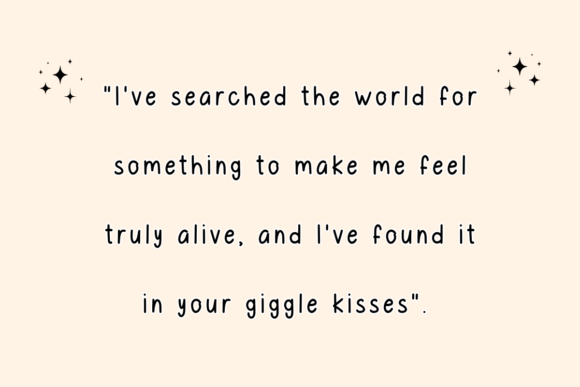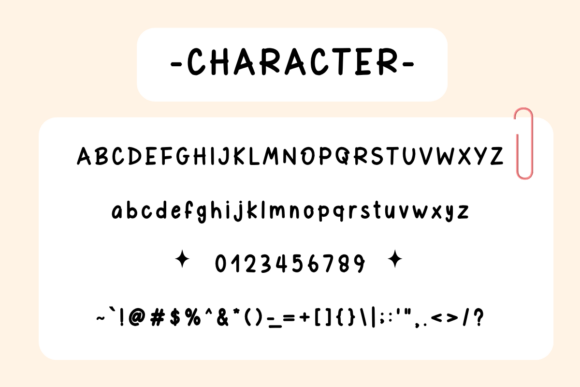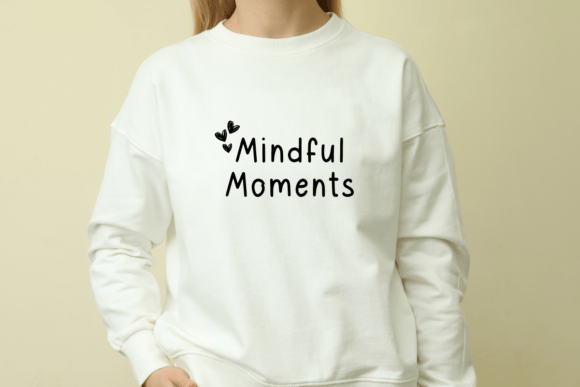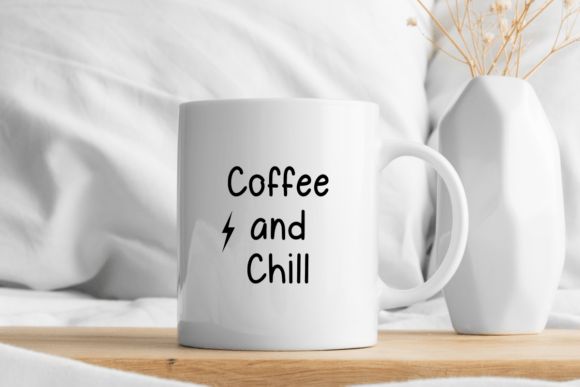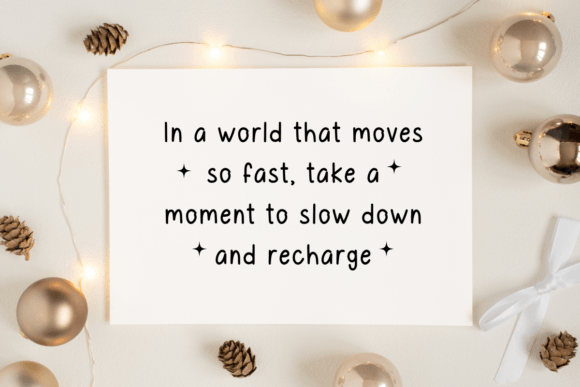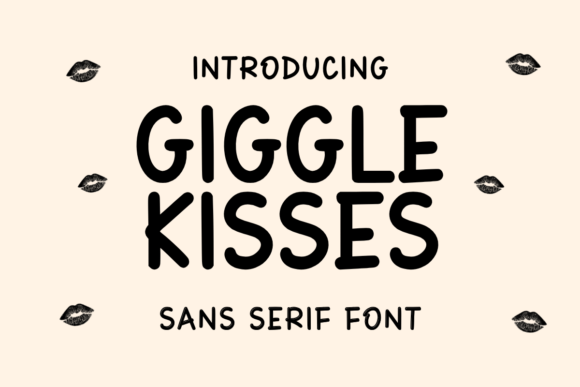
Introducing Giggle Kisses Font: The Perfect Blend of Clean, Modern, and Friendly
In the world of typography, fonts play a crucial role in conveying the tone and personality of a brand or design. For designers and crafters, finding the right font can be a daunting task, especially when it comes to creating visually appealing and engaging content. This is where Giggle Kisses Font comes in – a clean and modern sans serif font that adds a stylish and welcoming touch to any project.
What Makes Giggle Kisses Font Stand Out?
Giggle Kisses Font is a unique and refreshing addition to the world of typography. Its smooth, simple letters make it easy to read, perfect for a variety of design applications, including logos, posters, social media graphics, and more. The font’s clean and modern sans serif design ensures that it remains versatile and adaptable, making it an excellent choice for designers and crafters looking to add a friendly feel to their work.
Key Features of Giggle Kisses Font
- Clean and Modern Design: Giggle Kisses Font boasts a sleek and contemporary design that is sure to elevate any project.
- Easy to Read: The font’s smooth and simple letters ensure that it is easy to read, making it perfect for body text and headings.
- Friendly Feel: The font’s friendly feel makes it an excellent choice for designs that require a personal touch, such as social media graphics and posters.
- Versatile: Giggle Kisses Font is versatile and adaptable, making it suitable for a wide range of design applications.
Why Choose Giggle Kisses Font?
There are many reasons why designers and crafters should consider Giggle Kisses Font for their next project. Here are a few:
- Unique and Refreshing: Giggle Kisses Font is a unique and refreshing addition to the world of typography, making it an excellent choice for designers looking to stand out from the crowd.
- Time-Saving: The font’s clean and modern design ensures that it is easy to read, saving designers time and effort when it comes to creating engaging content.
- Professional-Looking Results: Giggle Kisses Font is perfect for designers and crafters who want to create professional-looking results without sacrificing style or creativity.
How to Use Giggle Kisses Font in Your Designs
Giggle Kisses Font is incredibly versatile and can be used in a variety of design applications. Here are a few ideas to get you started:
- Logos: Use Giggle Kisses Font to create a unique and memorable logo for your brand or business.
- Posters: The font’s clean and modern design makes it perfect for posters, flyers, and other marketing materials.
- Social Media Graphics: Giggle Kisses Font is an excellent choice for social media graphics, including Facebook posts, Instagram stories, and Twitter headers.
Tips and Tricks for Getting the Most Out of Giggle Kisses Font
Here are a few tips and tricks for getting the most out of Giggle Kisses Font:
- Experiment with Different Sizes: Giggle Kisses Font looks great in a variety of sizes, so don’t be afraid to experiment and find the perfect size for your design.
- Pair it with Other Fonts: The font’s clean and modern design makes it an excellent choice for pairing with other fonts, so don’t be afraid to get creative and try out different combinations.
- Use it Consistently: To create a cohesive look, use Giggle Kisses Font consistently throughout your design.
In conclusion, Giggle Kisses Font is a clean and modern sans serif font that adds a stylish and welcoming touch to any project. Its smooth, simple letters make it easy to read, perfect for logos, posters, social media graphics, and more. With its unique and refreshing design, Giggle Kisses Font is an excellent choice for designers and crafters looking to elevate their work and create engaging content. So why not give it a try and see the difference it can make in your designs?